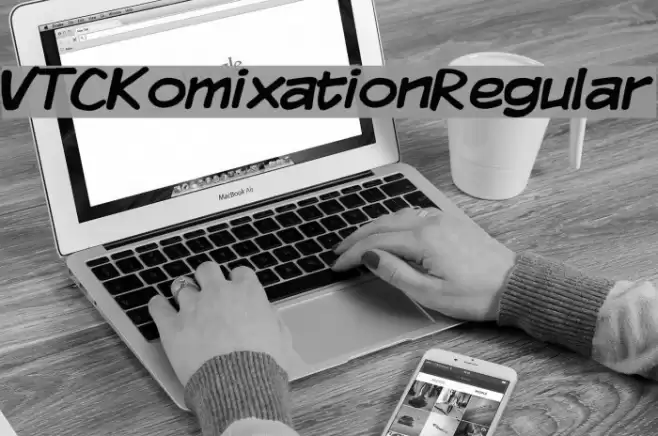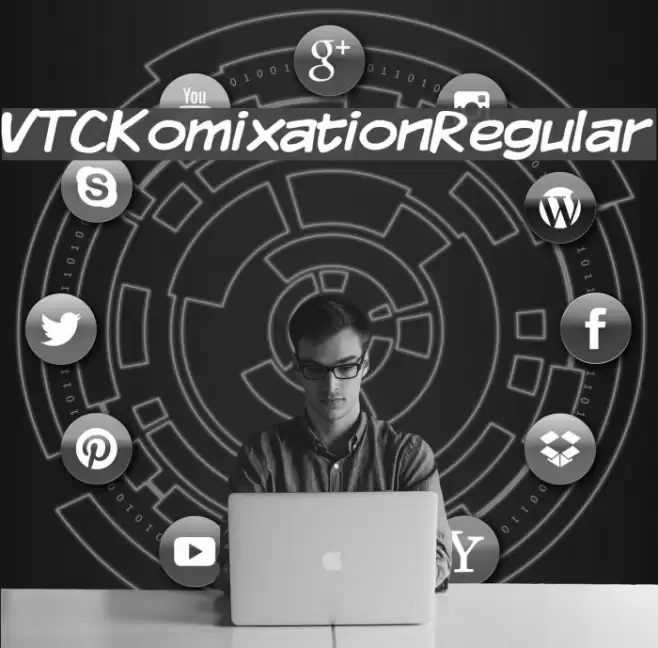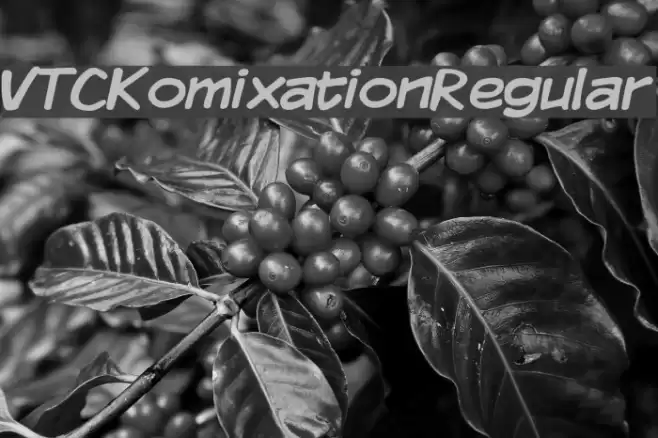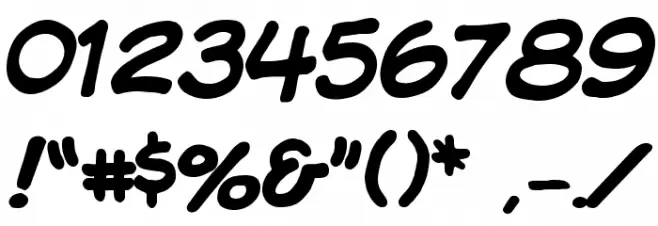
VTCKomixationRegular Font
VTCKomixationRegular Description
This playful and dynamic font features a bold, handwritten style with smooth curves and rounded edges. The characters are slightly slanted, giving a casual and informal appearance. The uppercase and lowercase letters maintain a consistent flow, while the numerals and special characters complement the overall design. Its bold strokes and uniform thickness make it highly legible, even at smaller sizes. The font exudes a sense of fun and creativity, making it perfect for projects that require a lively and engaging aesthetic.
A bold, playful handwritten font with smooth curves and a casual style from Uncategorized fonts.
- Proposed Projects: Ideal for comic books, children's books, playful branding, posters, and social media graphics.
- Overall Style: Playful, Casual